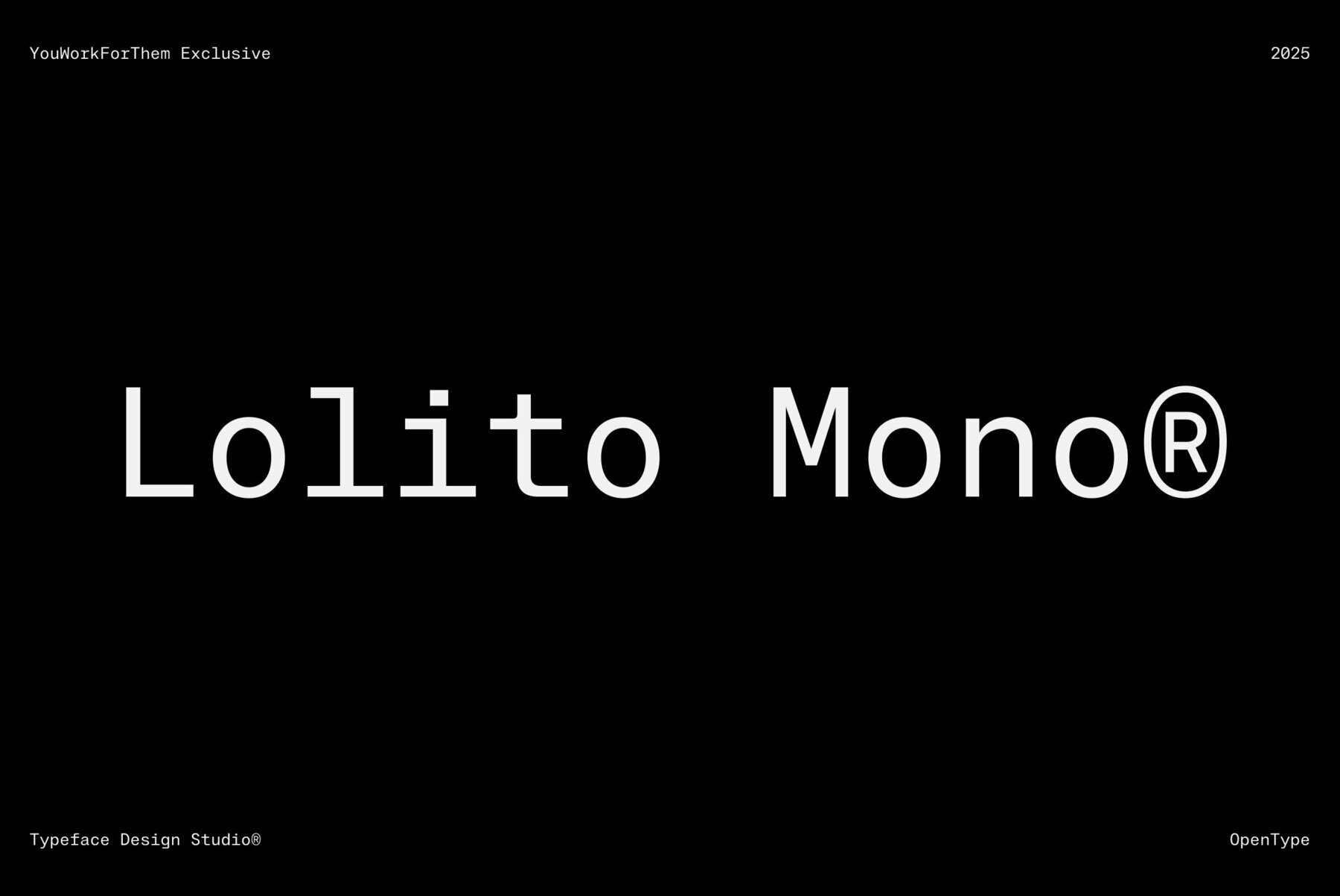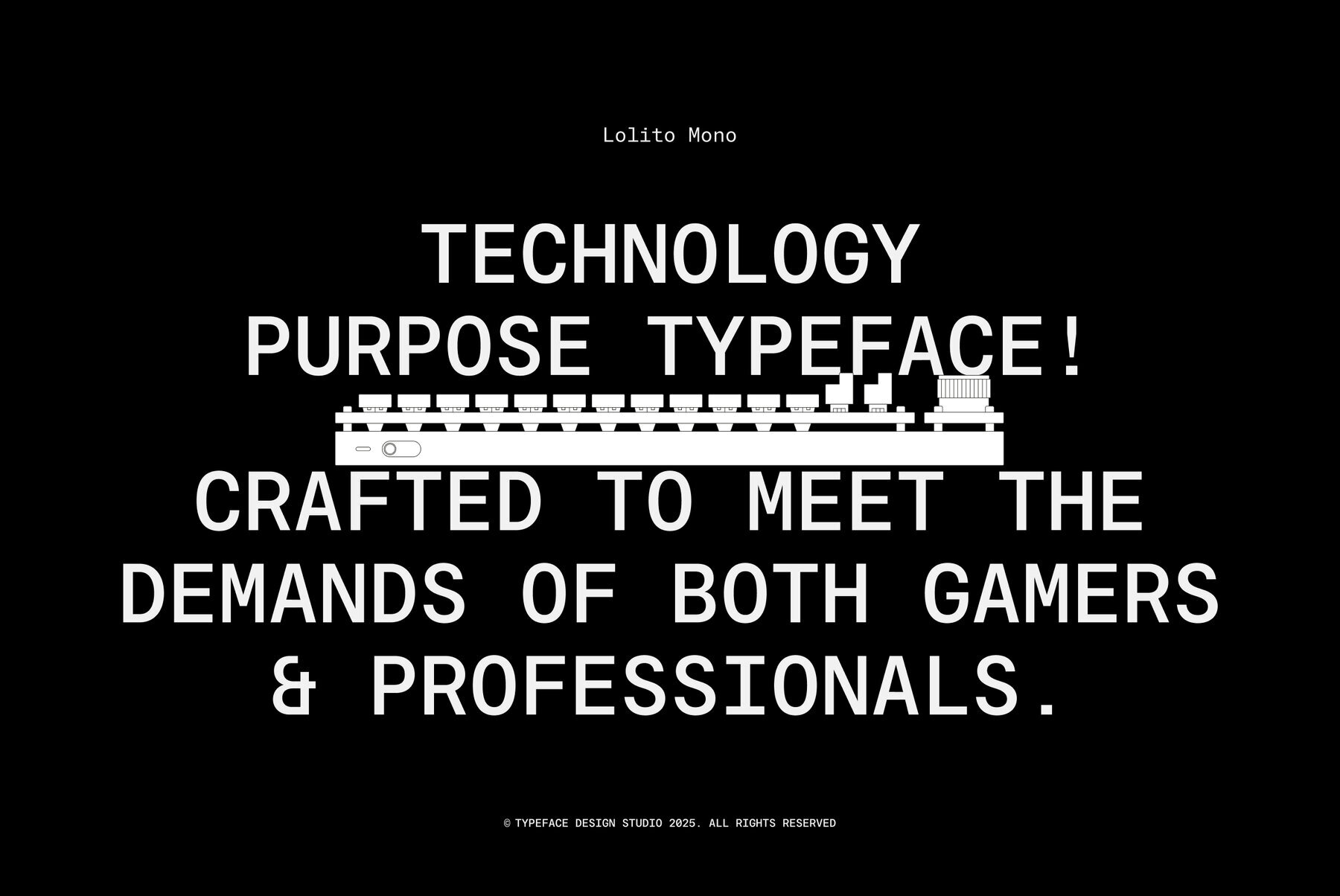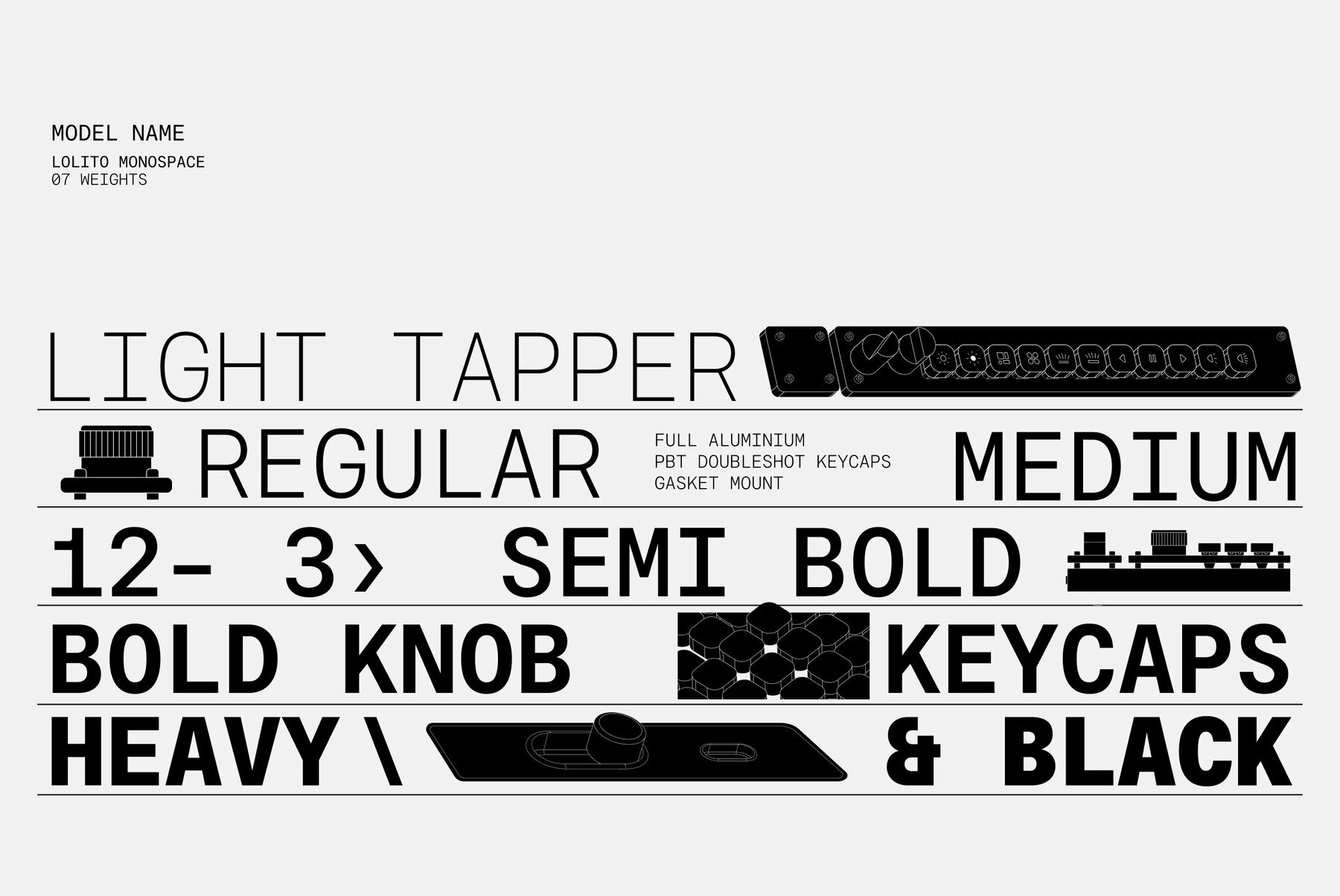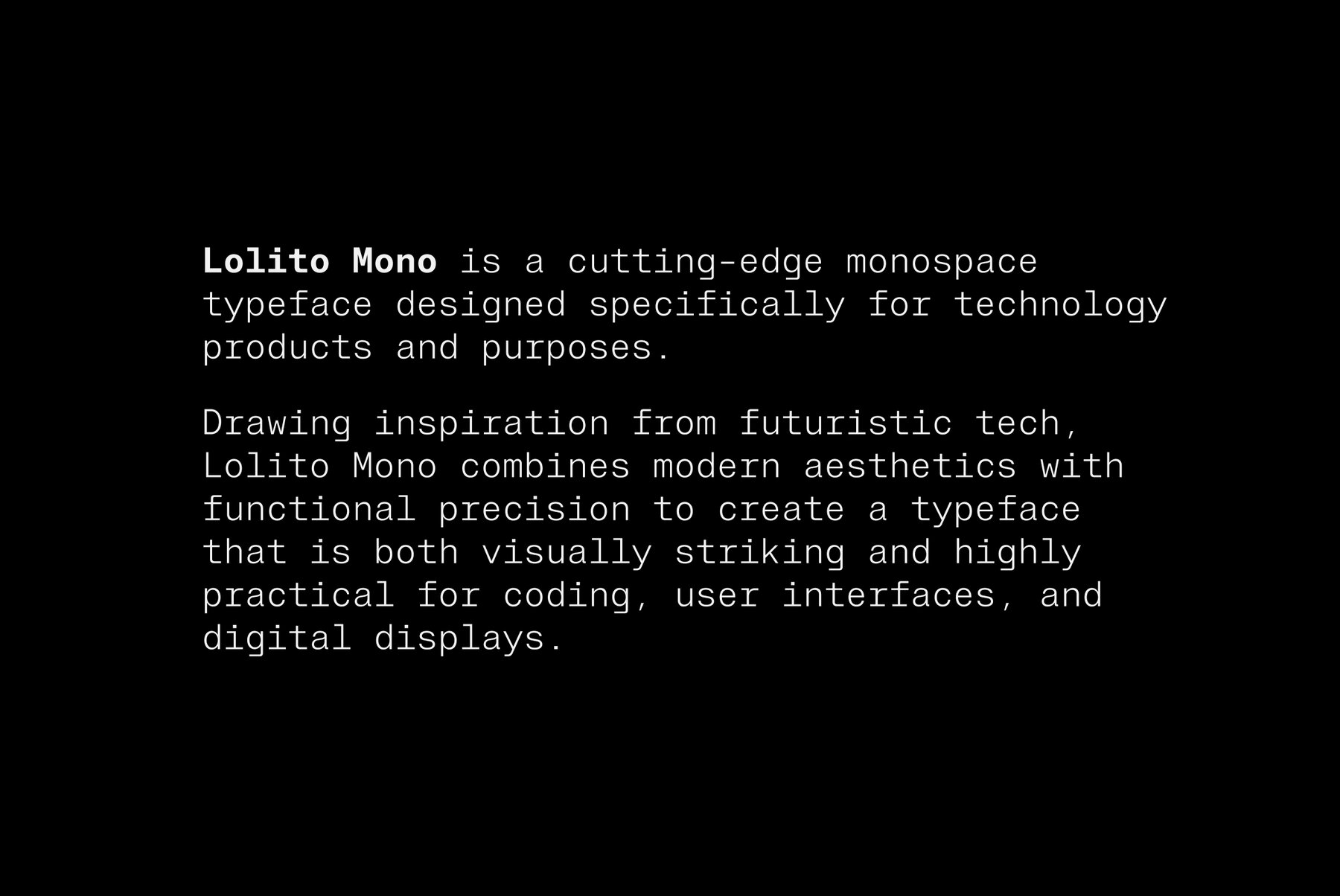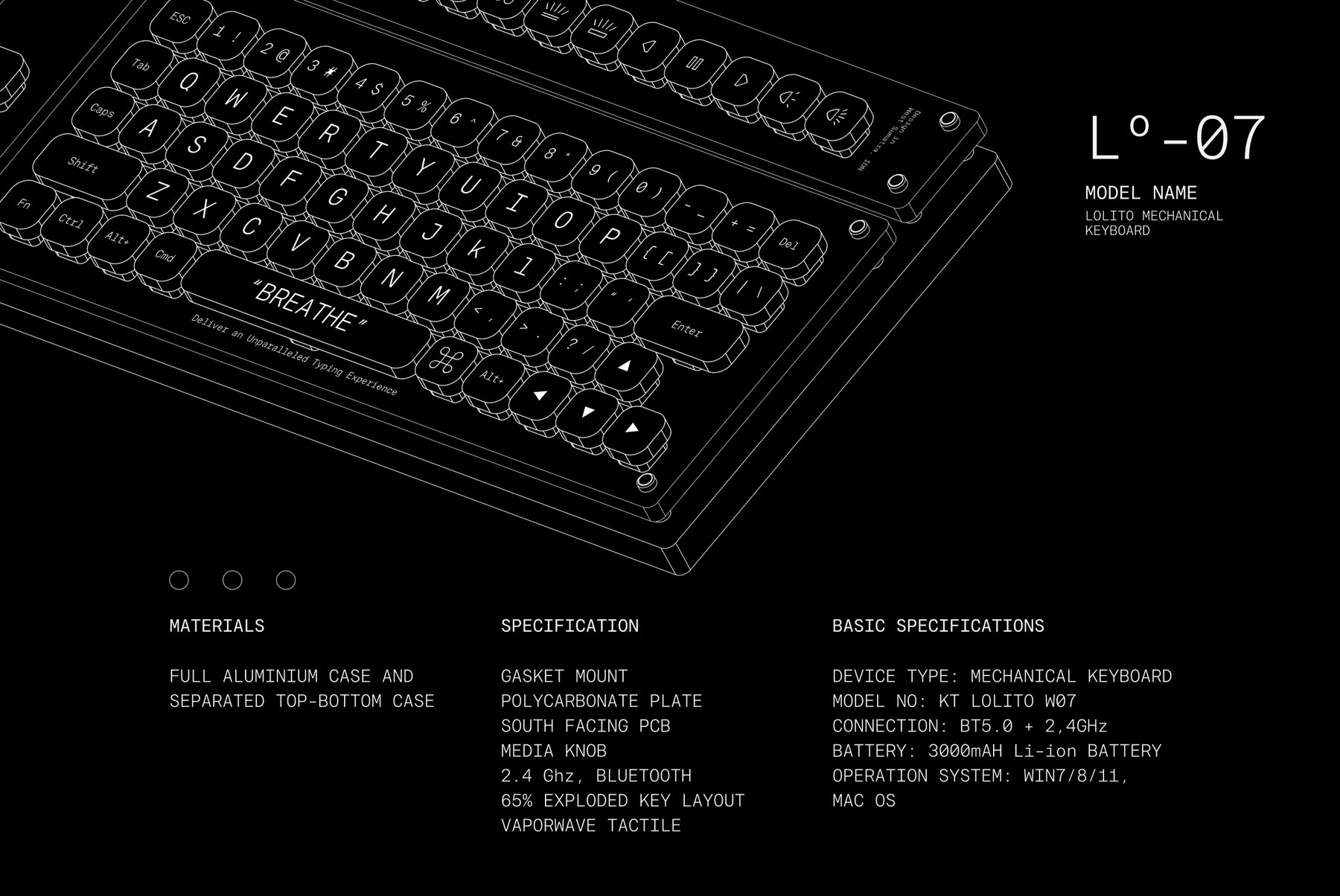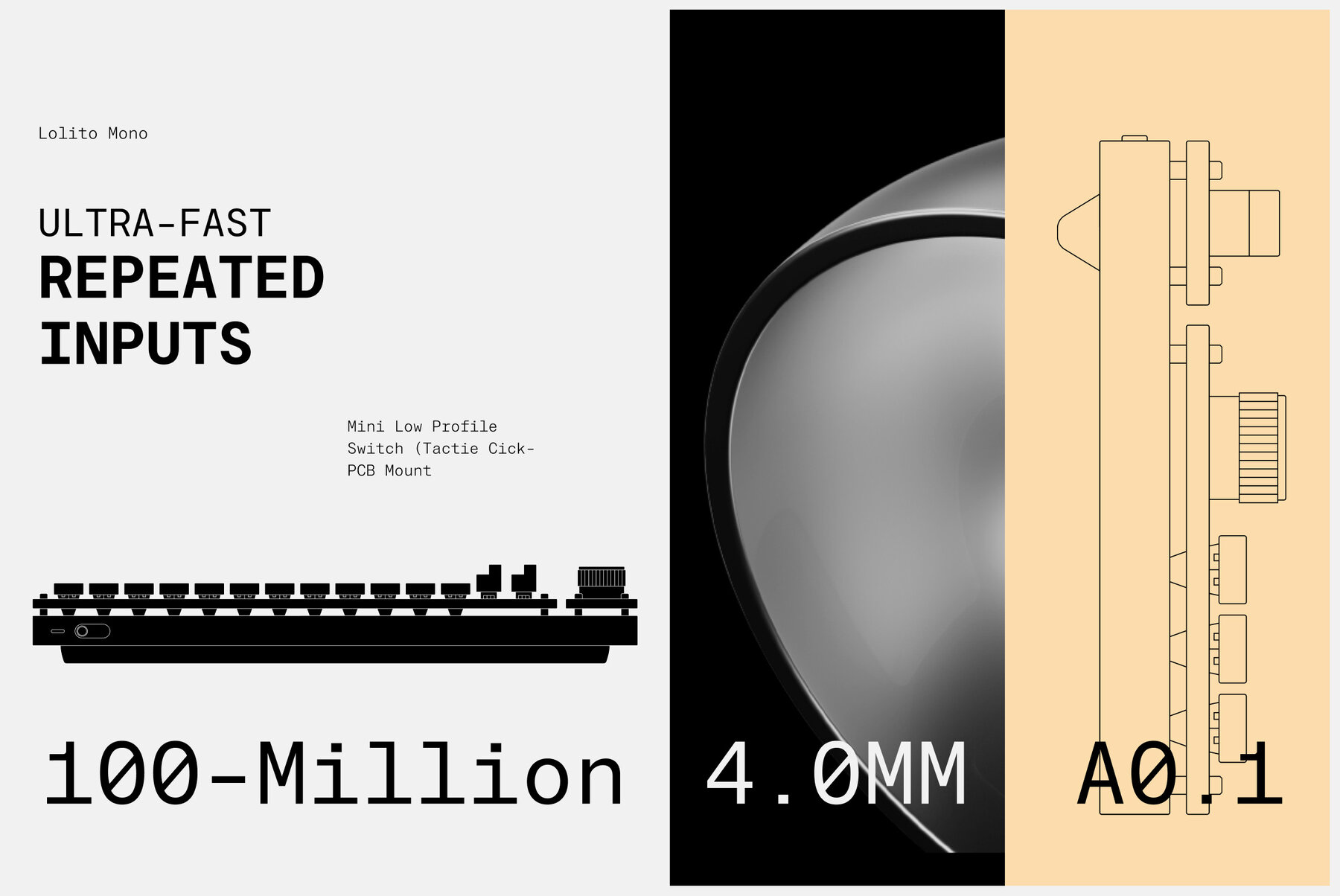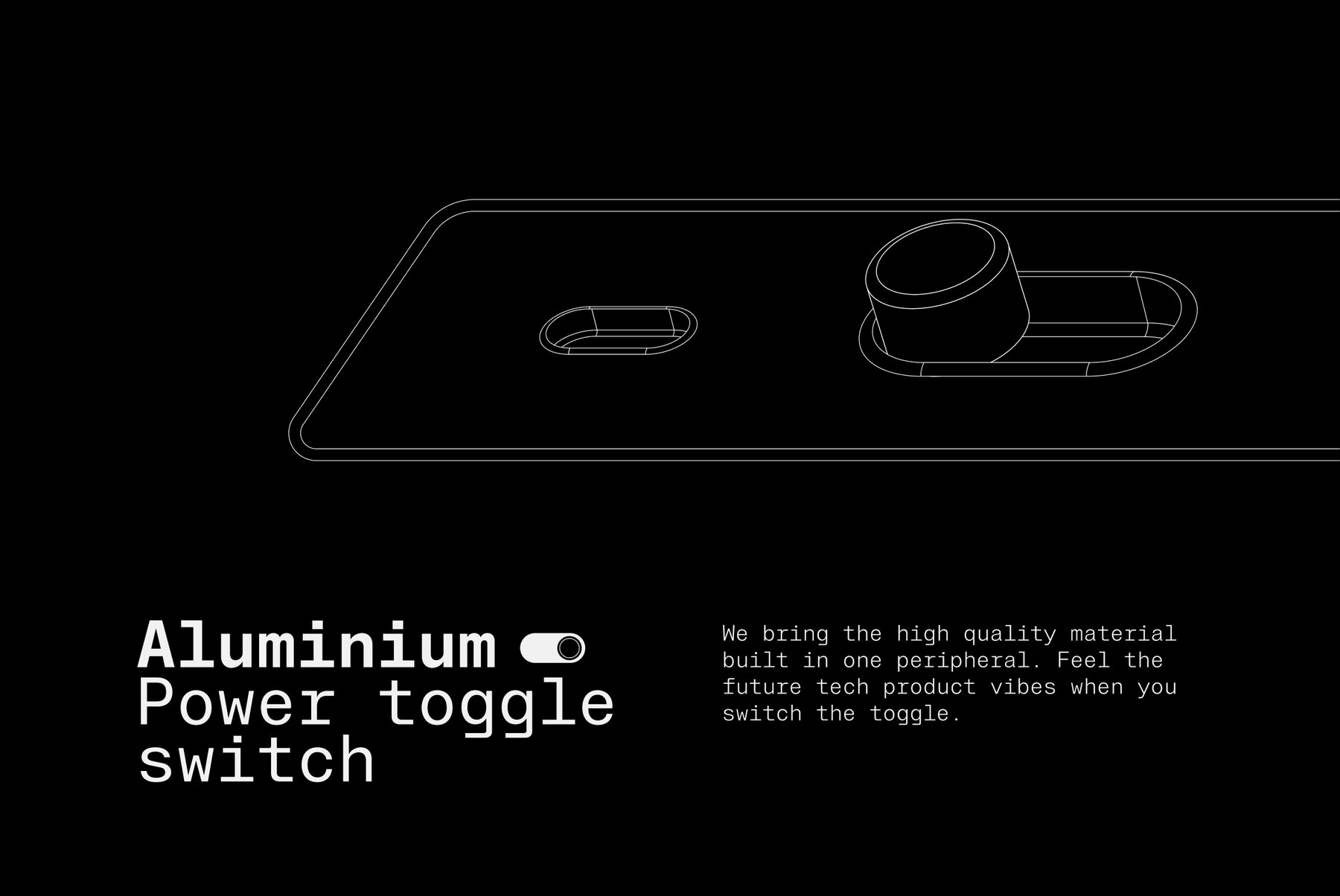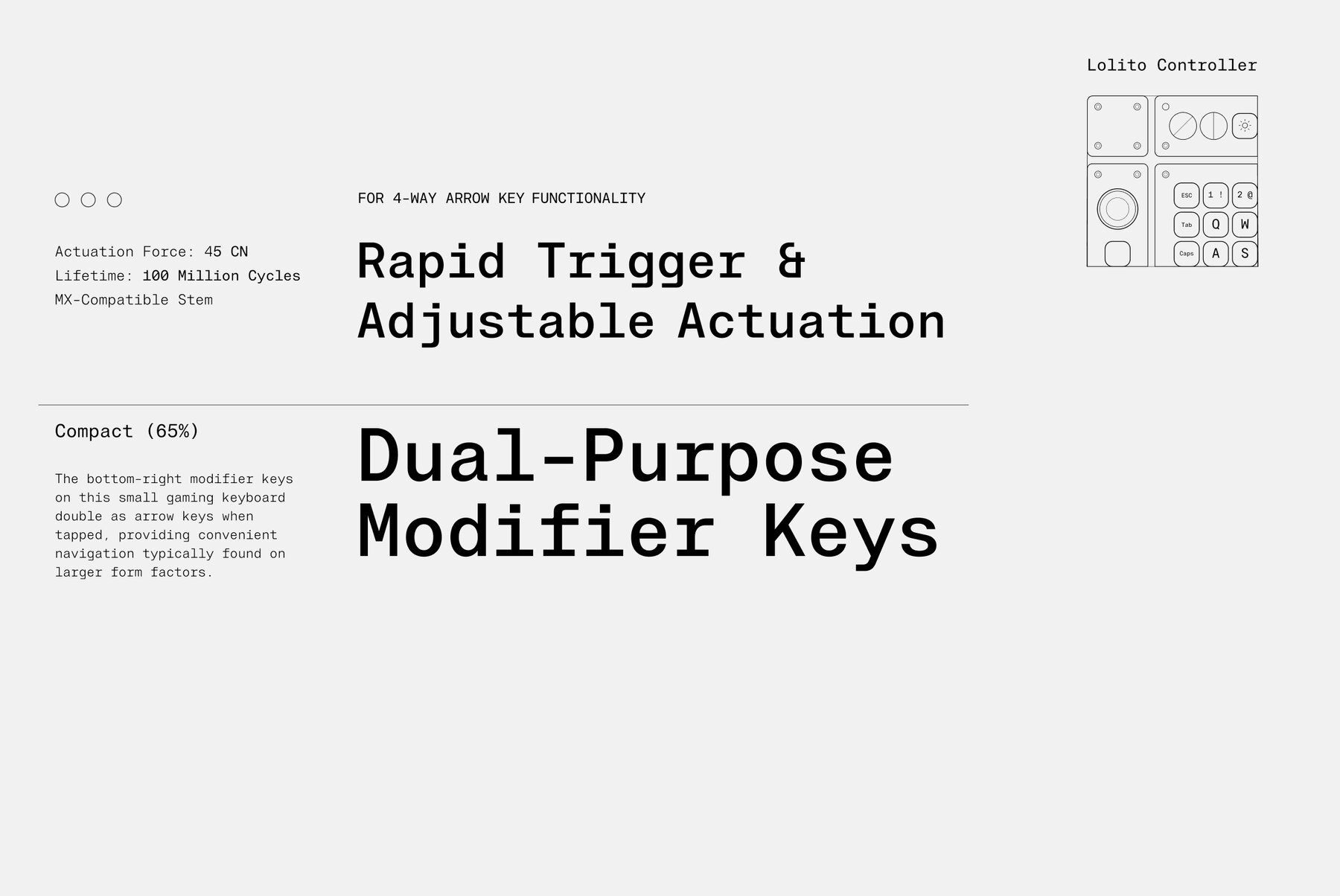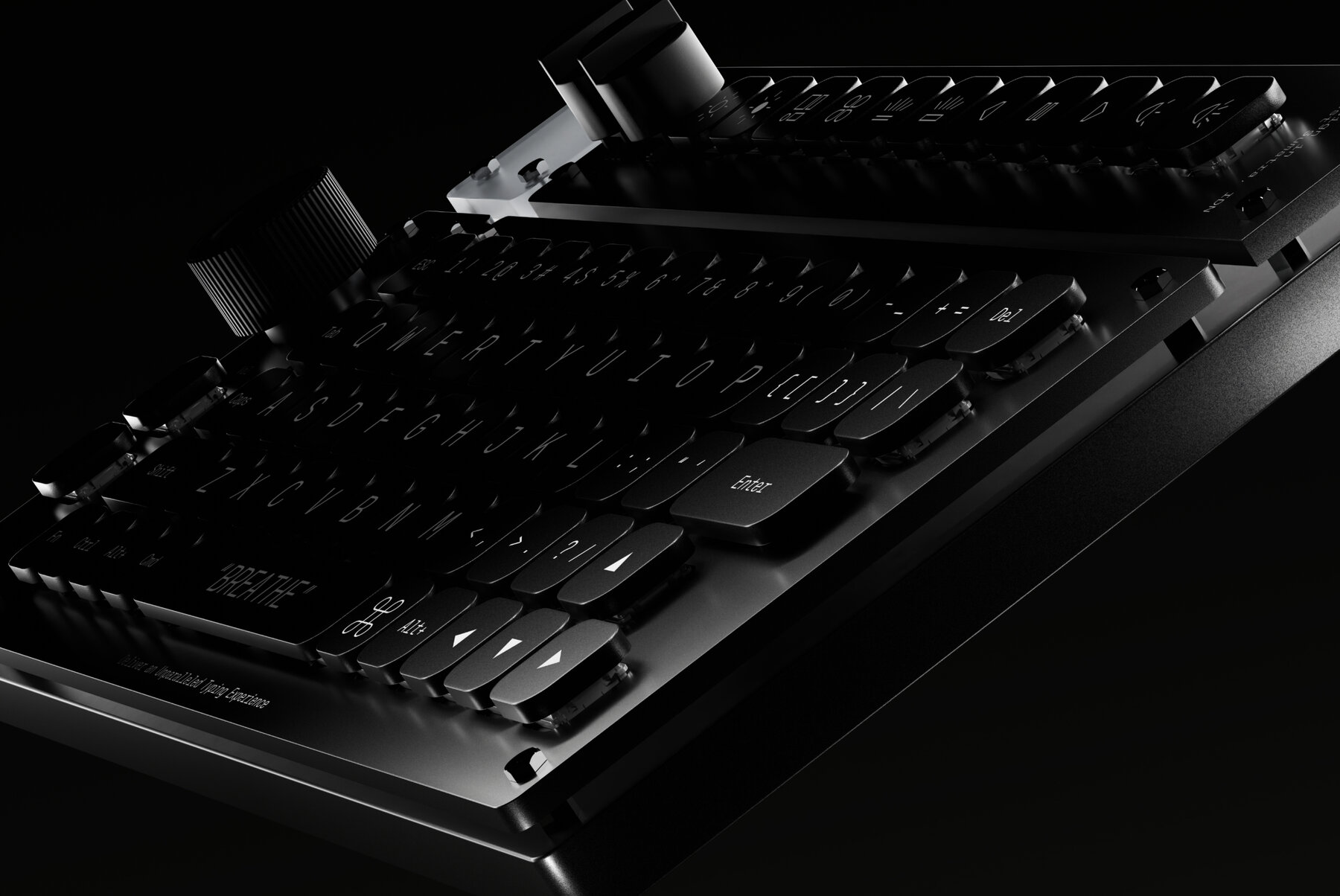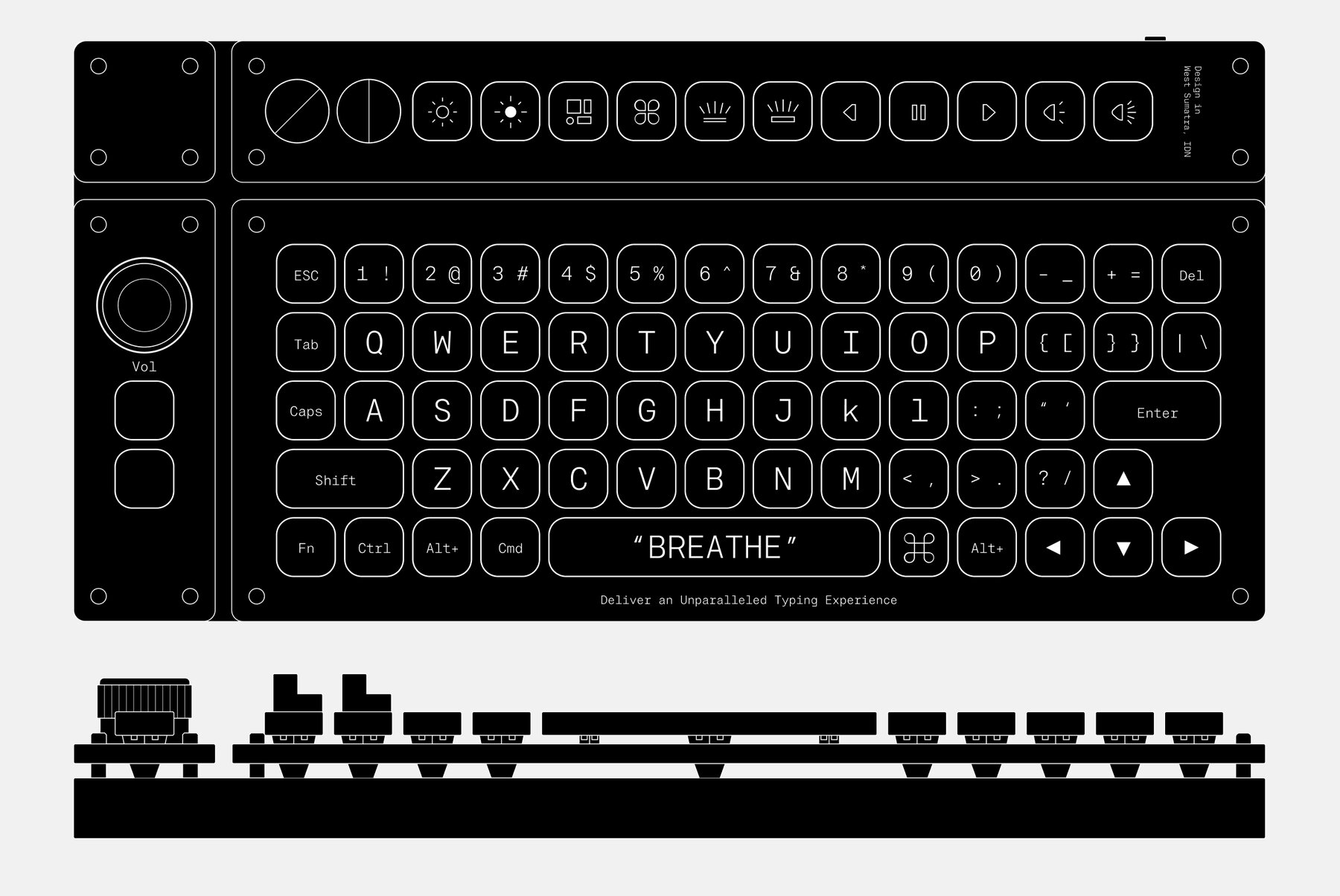
Lolito Mono Font
Lolito Mono is a contemporary monospace typeface, designed with a focus on technology-driven applications. Exclusively available at YouWorkForThem, this font draws its aesthetic inspiration from the world of advanced tech, seamlessly blending modern visuals with functional clarity. Ideal for coding, user interfaces, and digital displays, Lolito Mono offers a distinctive presence that is both striking and pragmatic. Going beyond mere visual appeal, Lolito Mono is crafted to enhance user experience within technological environments. Its futuristic design paired with functional accuracy sets a new benchmark for monospace fonts in tech-related projects.Lolito Mono: Futuristic Precision in a Monospace Design